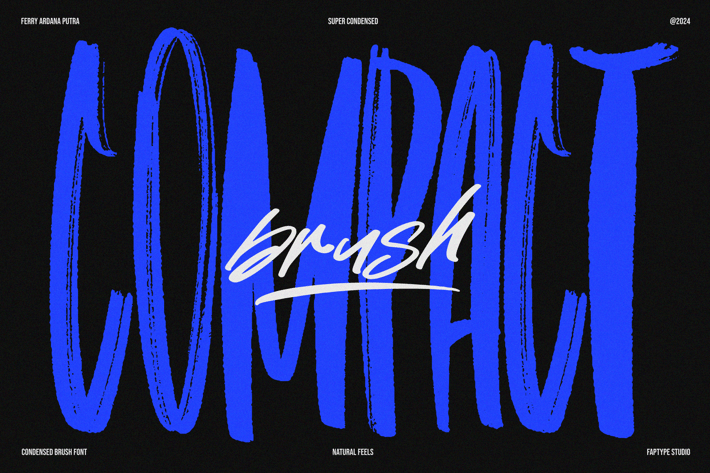
Compact Brush | Condensed Brush Branding logo Font
Introducing Compact Brush, a sophisticated and powerful condensed brush font designed for modern creatives seeking elegance and impact. This font brings together the bold expressiveness of a brush style with a compact, space-saving structure, making it perfect for projects where every inch counts without sacrificing visual appeal.
Compact Brush delivers striking, handcrafted strokes with a streamlined, condensed design, making it ideal for headlines, posters, branding, packaging, and more. Its versatility allows it to shine in various design environments, offering a professional yet artistic feel that stands out in both digital and print media.
With its balanced combination of sharp edges and smooth brush textures, Compact Brush evokes a sense of dynamic energy while maintaining legibility even in tight spaces. It’s perfect for designers who want to create bold statements without overwhelming their layouts. Whether you’re designing for a commercial project or a personal creative endeavor, Compact Brush ensures your message is conveyed with clarity and style.
Add a touch of artistic flair to your designs with Compact Brush, a font that effortlessly blends creativity with precision. Let your projects speak louder and clearer with the unique character of this condensed brush font.